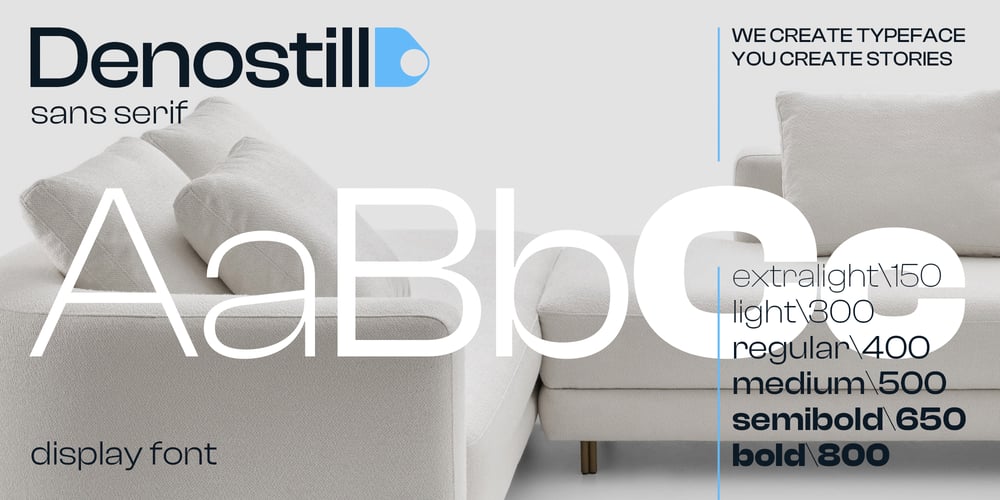
Denostill Font Family was designed by Moataz Khalifa and published by Concepta Digital. Denostill contains 6 styles and family package options. Denostill is a versatile sans serif font that supports both Latin and Cyrillic scripts, offering a wide range of weights from extra light to bold. Its unique features include distinctive steps, elegant junctions, and subtly rounded angles within squared ovals.Ideal for both display and print purposes, the light styles exude a gentle and tranquil vibe, while the bold style conveys a sense of solidity and seriousness. Whether used for headlines or body text, Denostill brings a harmonious balance of modernity and sophistication to any design project.